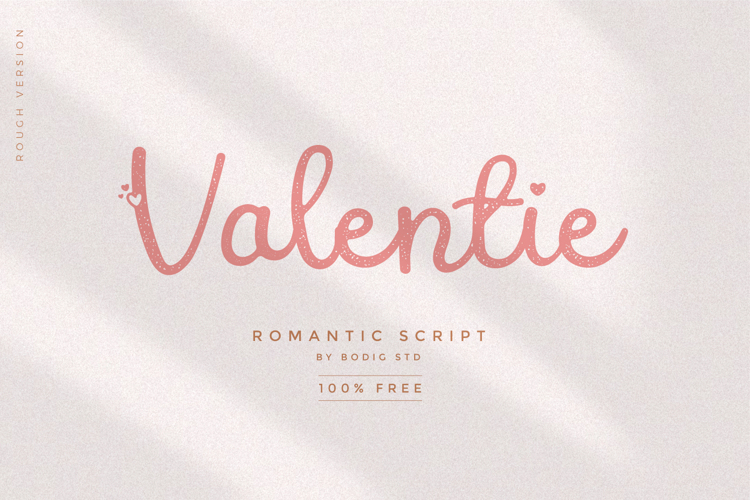
Valentie Font
About Valentie Font
Valentie is a lovely and romantic script font that dances with the rhythm of love. With graceful letterforms and a touch of sophistication, it adds an enchanting and timeless elegance to your designs. Ideal for projects seeking a tender and romantic aesthetic, Valentie captivates with its heartfelt and expressive flair.